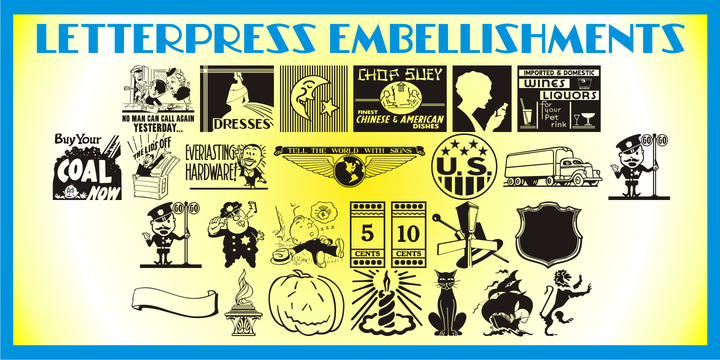
Letterpress Embellishments JNL
by Jeff Levine
Letterpress Embellishments JNL is another typographic collection of assorted stock advertising cuts, ornaments, cartoons and other miscellany found within the type drawers of letterpress printers and based on vintage source material.